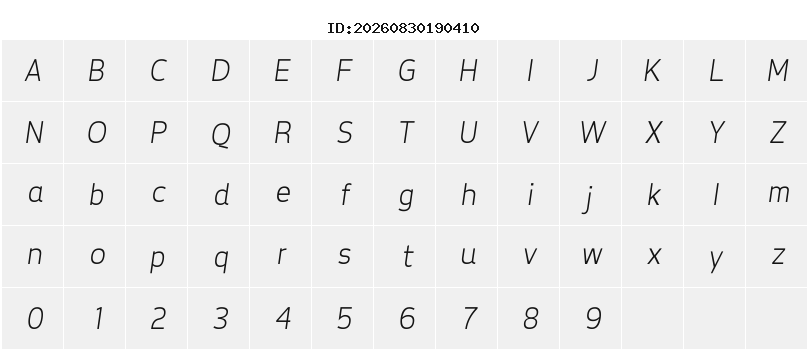
• Font Name: Tepeno Sans Light
• Font ID: Tepeno Sans Light Italic
• Full Font Name: Tepeno Sans Light Italic
• PostScript Name: TepenoSansLightItalic
• Character Count: 214
• Designer: Jayvee D. Enaguas (Grand Chaos)
About Tepeno Sans Light.ttf
Tepeno Sans Light.ttf is a modern, elegant sans-serif font designed for ultimate readability and visual harmony. Perfect for branding, headlines, web design, and print materials.